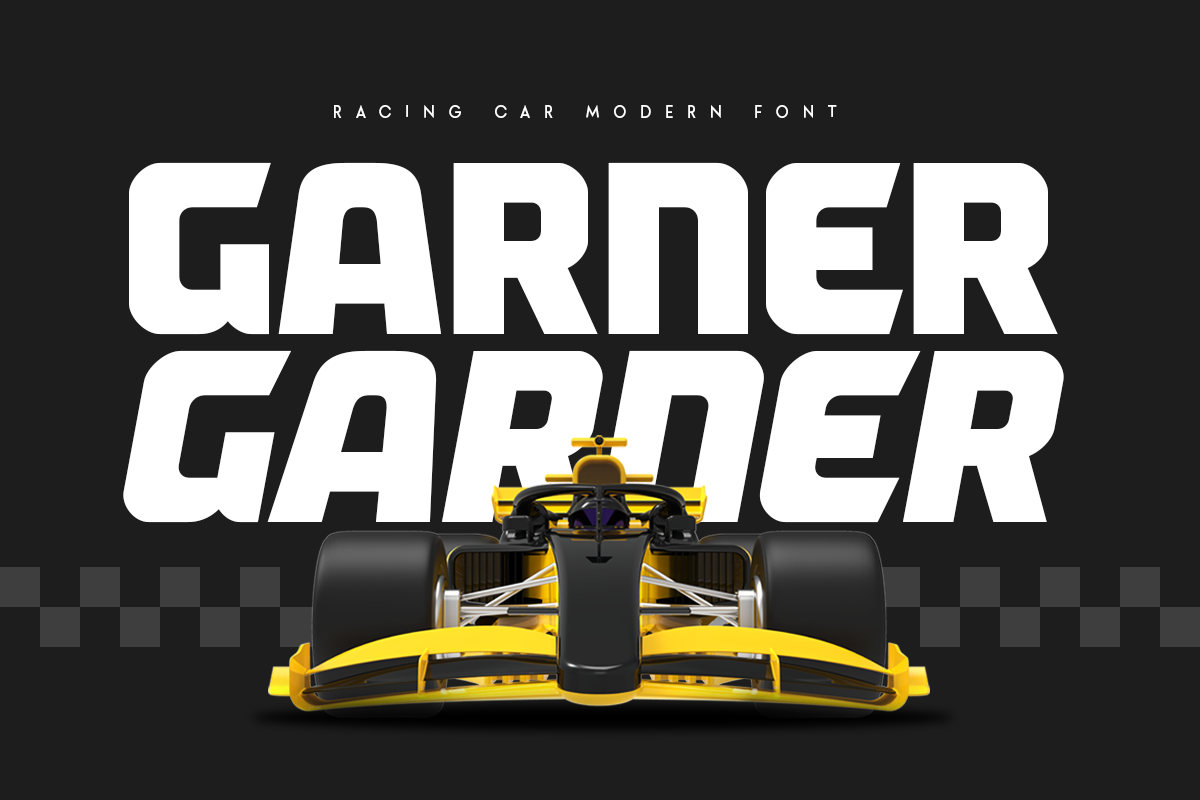
Garner - Racing Car Modern Font
Garner delivers high-octane typography designed specifically for racing, sports, and action-packed branding that demands attention. This modern sans serif font captures the essence of speed and competition, making it the perfect choice for sport-themed projects, technology applications, and dynamic headlines. The bold, action-oriented design brings a contemporary edge that emphasizes power and movement. Whether you're creating branding for motorsports, designing action movie titles, or developin...